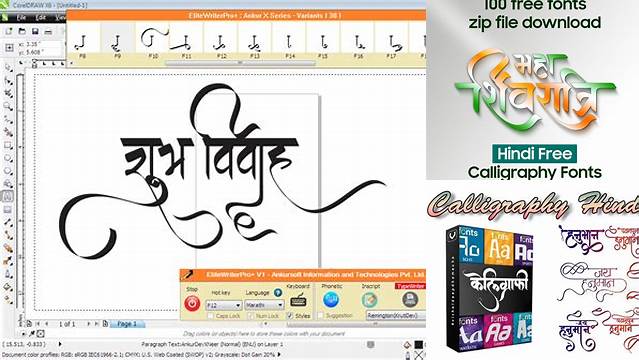
Hindi Calligraphy: Free Font Generator Online
Are you looking to create beautiful Hindi calligraphy effortlessly? You're in the right place! This article dives into the world of Hindi calligraphy fonts online generators, exploring various options and how to make the most of them. Whether you're a seasoned designer or just starting, you'll find valuable insights and tools to elevate your projects.
What is Hindi Calligraphy?
Before diving into the tools, let's understand what Hindi calligraphy is all about. It’s the art of beautiful writing in the Hindi language. It takes the inherent elegance of the Devanagari script and elevates it to an art form. Think of it as painting with words, where each stroke and curve carries meaning and aesthetic appeal. From ancient scriptures to modern designs, Hindi calligraphy adds a touch of tradition and sophistication.
Why Use an Online Generator?
Why bother with an online generator when you could learn traditional calligraphy? Well, guys, let's be real, time is precious! Online generators offer a quick and easy way to create stunning calligraphy without years of practice. They're perfect for social media posts, website banners, invitations, and tons of other projects. Plus, they often come with a variety of font styles and customization options, giving you the creative freedom to experiment.
Understanding Hindi Font Styles
Before we jump into using the generators, it's important to understand the different styles of Hindi fonts available. Knowing the styles can help you make the right choice for your design. There are many styles that fit well with Hindi calligraphy, these include:
Devanagari Script Basics
The Devanagari script is the foundation of Hindi calligraphy. Understanding its basic structure is crucial. The script is written from left to right, with a horizontal line running across the top of the letters. This line, known as the shirorekha, connects the letters and gives the script its distinctive appearance. Each character has a unique shape and sound, and combining them creates beautiful words and phrases. Mastering the Devanagari script is the first step to creating stunning Hindi calligraphy.
Calligraphic Variations
Within Devanagari, there are countless calligraphic variations. Some emphasize bold strokes, while others focus on delicate curves. Some styles are more traditional, while others are modern and experimental. Exploring these variations allows you to find the perfect style for your project. Consider the overall tone and message you want to convey when choosing a calligraphic style. A formal event might call for a classic, elegant style, while a casual project might benefit from a more playful and modern approach.
Modern vs. Traditional Styles
Modern styles often incorporate contemporary design elements, while traditional styles adhere to historical forms. Traditional Hindi calligraphy is characterized by its ornate details and flowing lines. It often features intricate flourishes and embellishments, reflecting the rich cultural heritage of the language. Modern styles, on the other hand, tend to be more streamlined and minimalist. They often incorporate bold typography and geometric shapes, creating a fresh and contemporary look. Knowing the difference helps you choose the right font for your specific need.
Top Hindi Calligraphy Font Generators Online
Font Generator Overview
Best Free Options
Don't want to spend a dime? No problem! There are plenty of fantastic free options available. Look for generators that offer a good selection of fonts and basic customization features. Test out a few different generators to see which one you like best. Many free generators offer a surprising amount of functionality, allowing you to create beautiful calligraphy without breaking the bank.
Paid Generator Perks
If you're serious about your calligraphy, consider investing in a paid generator. Paid generators often offer a wider range of fonts, advanced customization options, and higher-quality output. They may also provide access to premium support and resources. If you plan to use the generator frequently or for professional projects, a paid subscription can be a worthwhile investment.
How to Use a Hindi Calligraphy Font Generator
Okay, so you've picked your generator. Now what? Here's a step-by-step guide to creating beautiful Hindi calligraphy:
Step-by-Step Guide
Digital Calligraphy Tools: A Comprehensive Guide
Digital calligraphy tools have revolutionized the way calligraphy is created and practiced. These tools include software programs, tablets, and styluses that allow you to create calligraphy on a computer or mobile device. They offer a wide range of features and options for customizing your designs. Digital calligraphy tools can be a great way to learn and practice calligraphy, as well as create professional-quality designs.